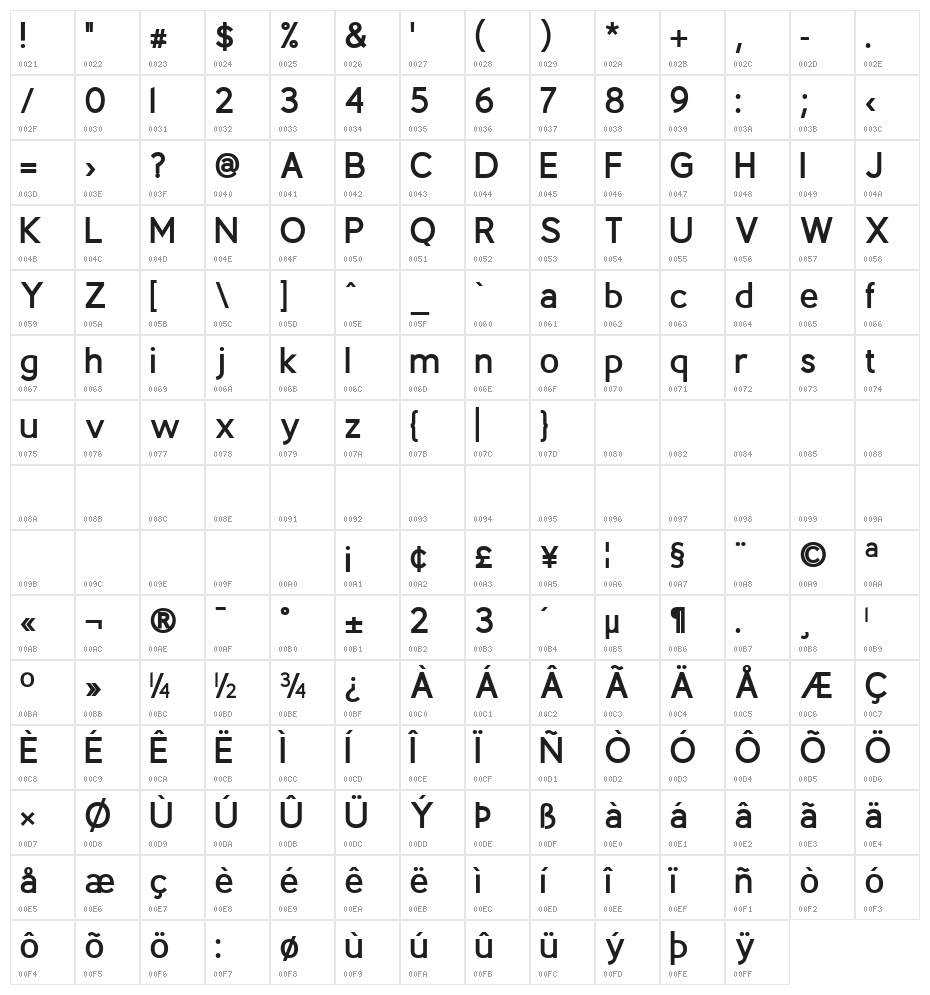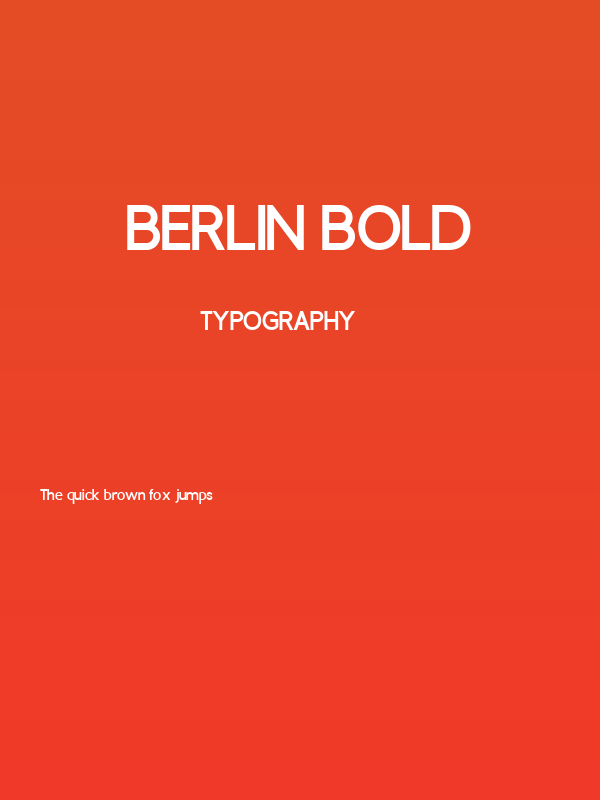
Berlin Bold Font
Berlin Bold Description
This font is a bold, sans-serif typeface characterized by its clean and modern appearance. The letters are uniform in weight, providing a strong and impactful look. The uppercase and lowercase letters are well-proportioned, with a consistent stroke width that enhances readability. The numerals are clear and distinct, making them suitable for various applications. The special characters are designed to complement the overall style, maintaining the font's cohesive appearance. This typeface is versatile, making it ideal for both digital and print media.
| Proposed Projects | Ideal for branding, advertising, headlines, and digital media projects. |